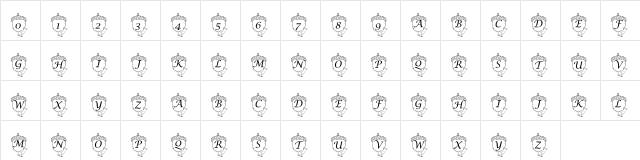
pf_acornmouse Regular
Design Context for pf_acornmouse Typeface
pf_acornmouse is a composed and adaptable typeface that performs quietly and consistently across a wide range of design contexts.